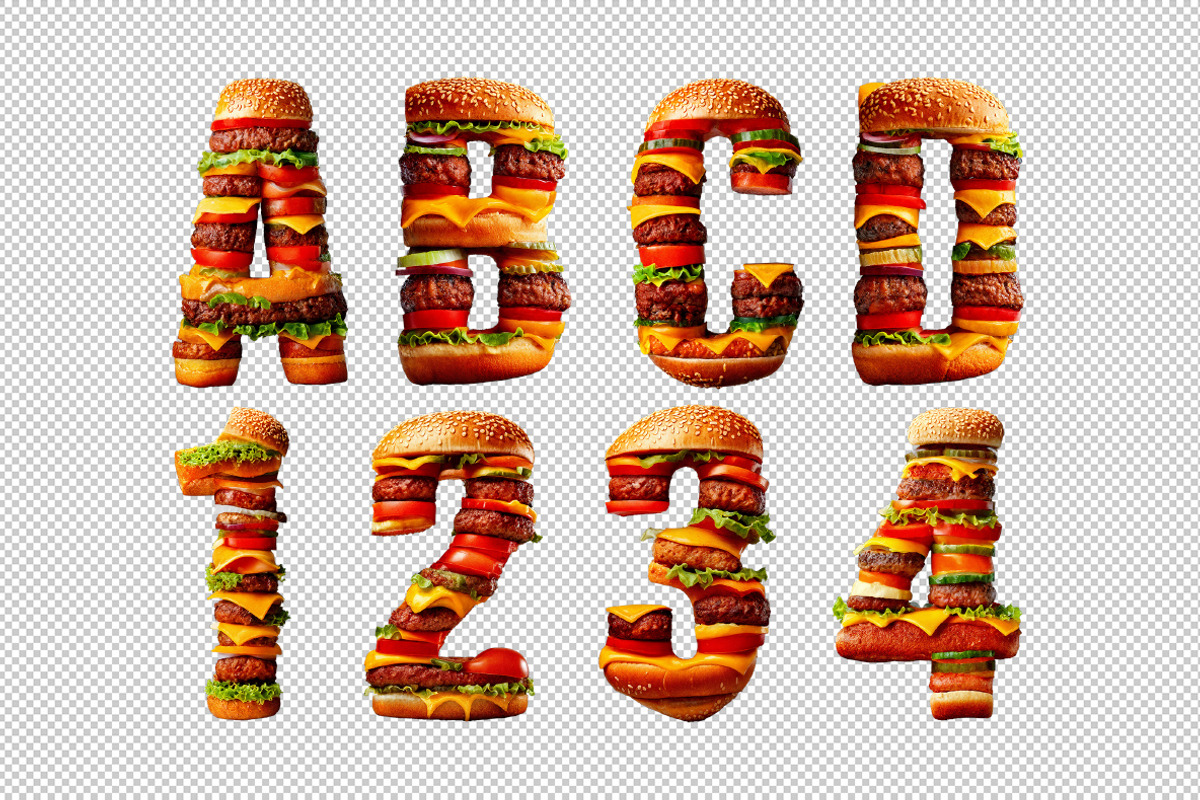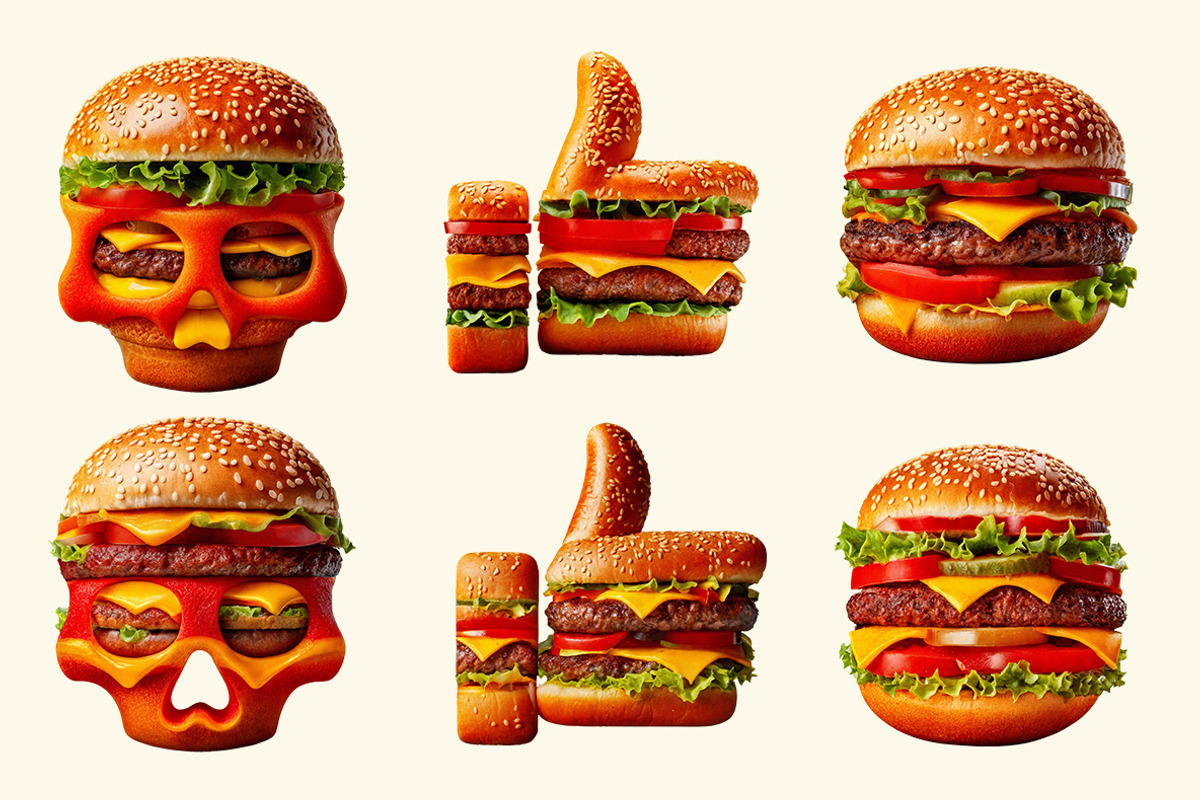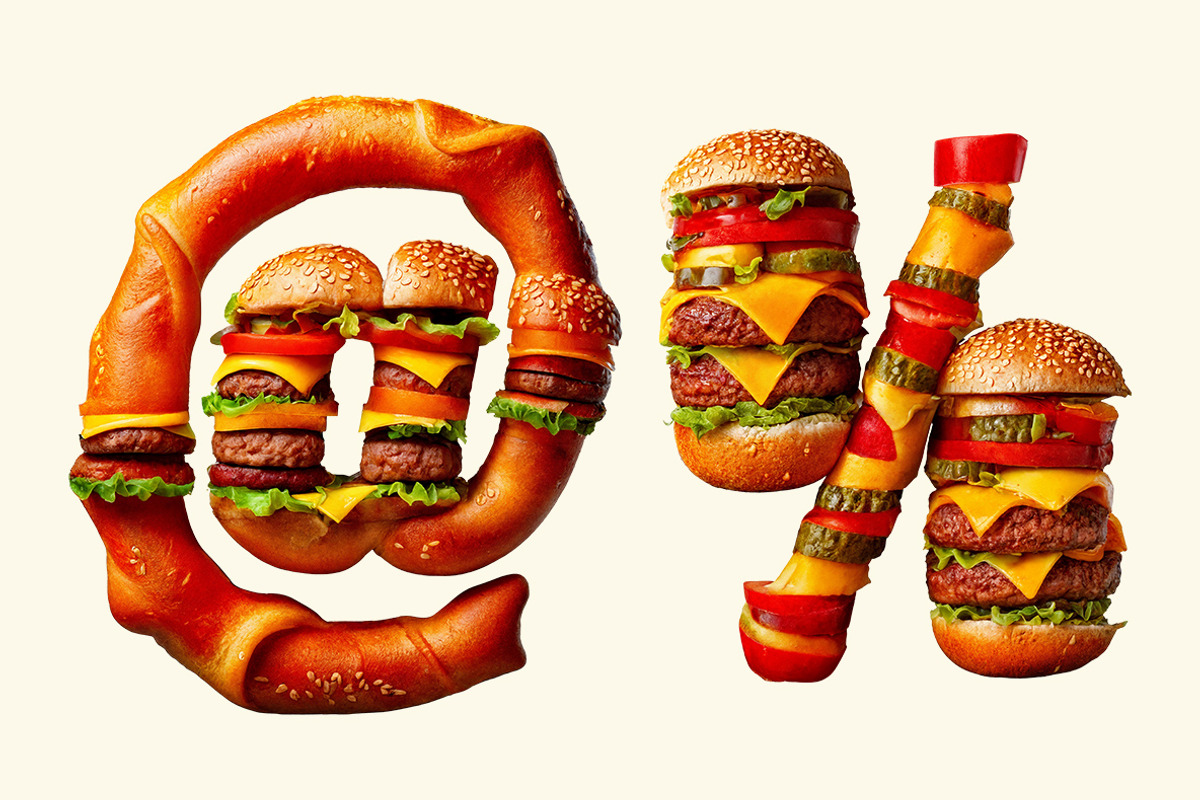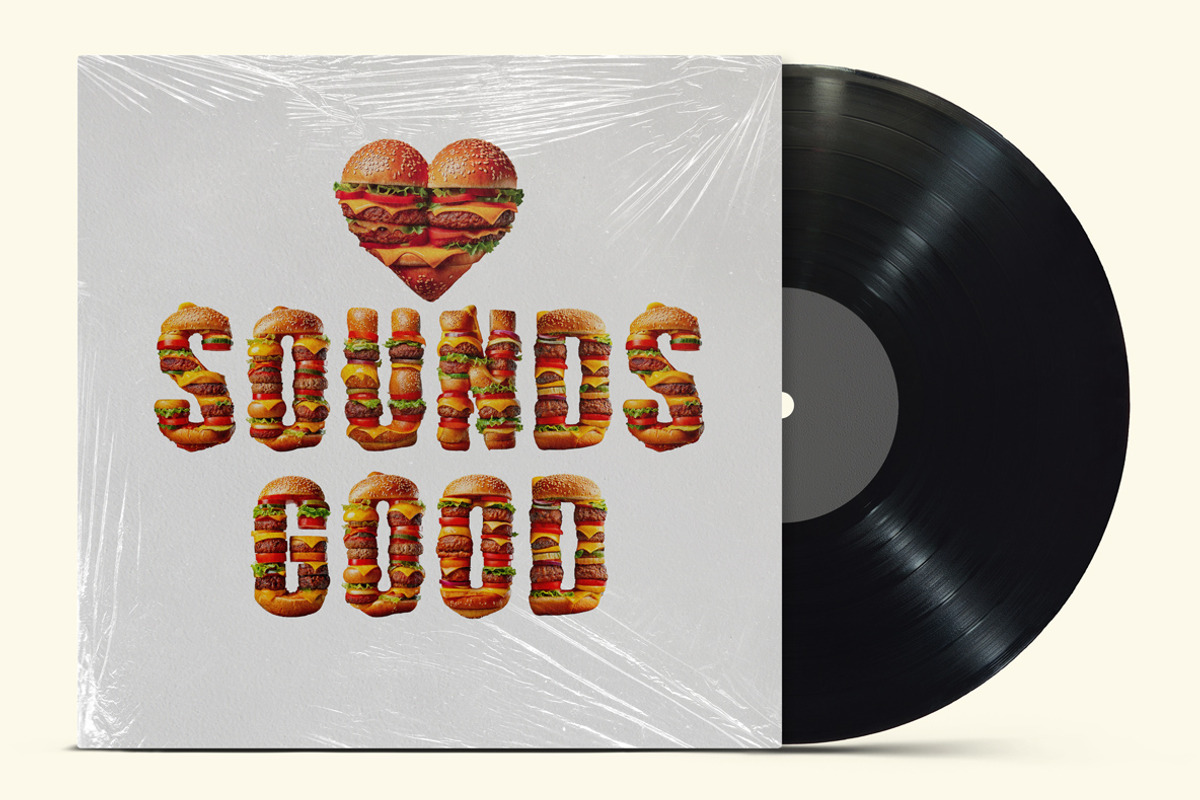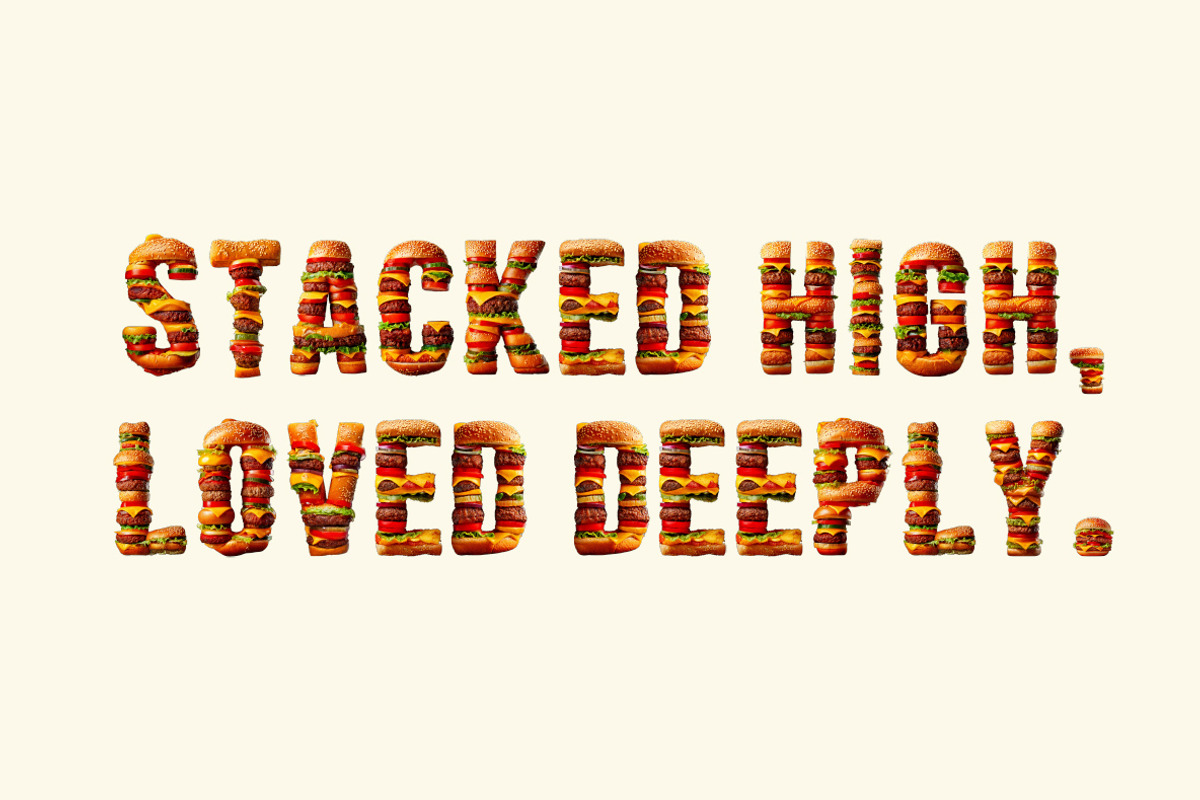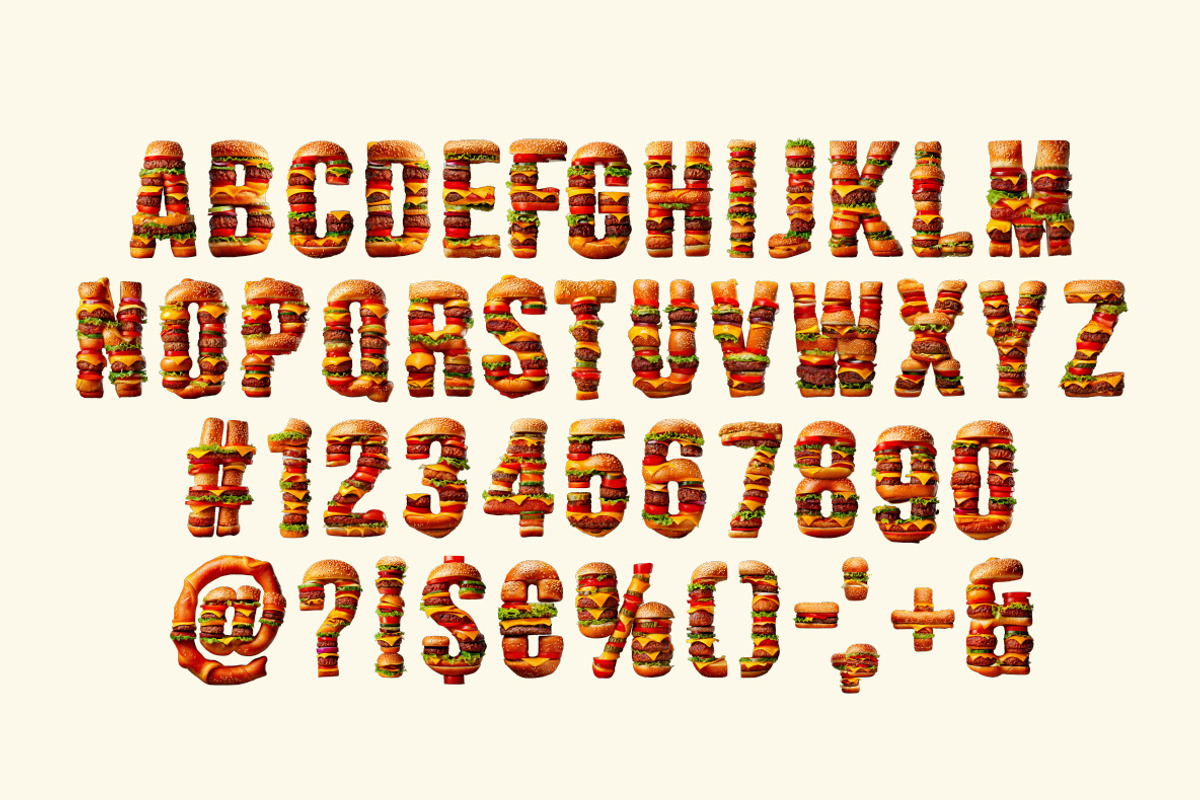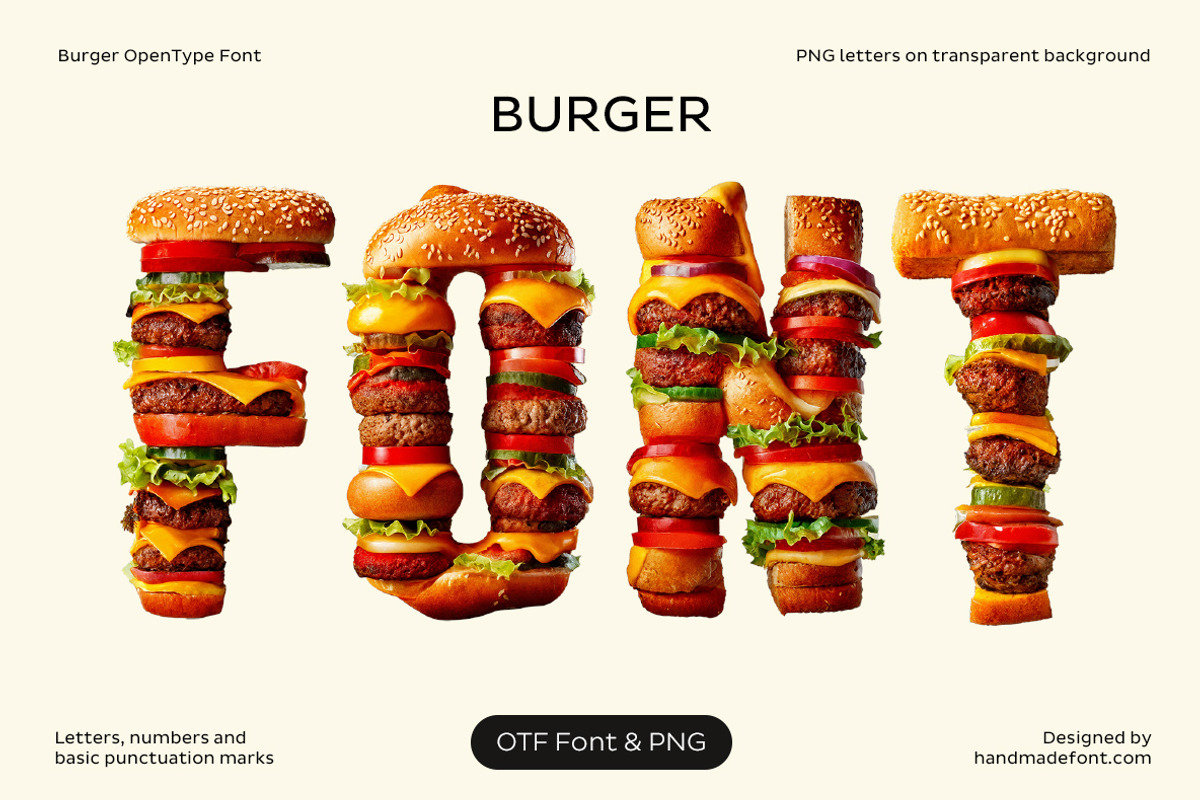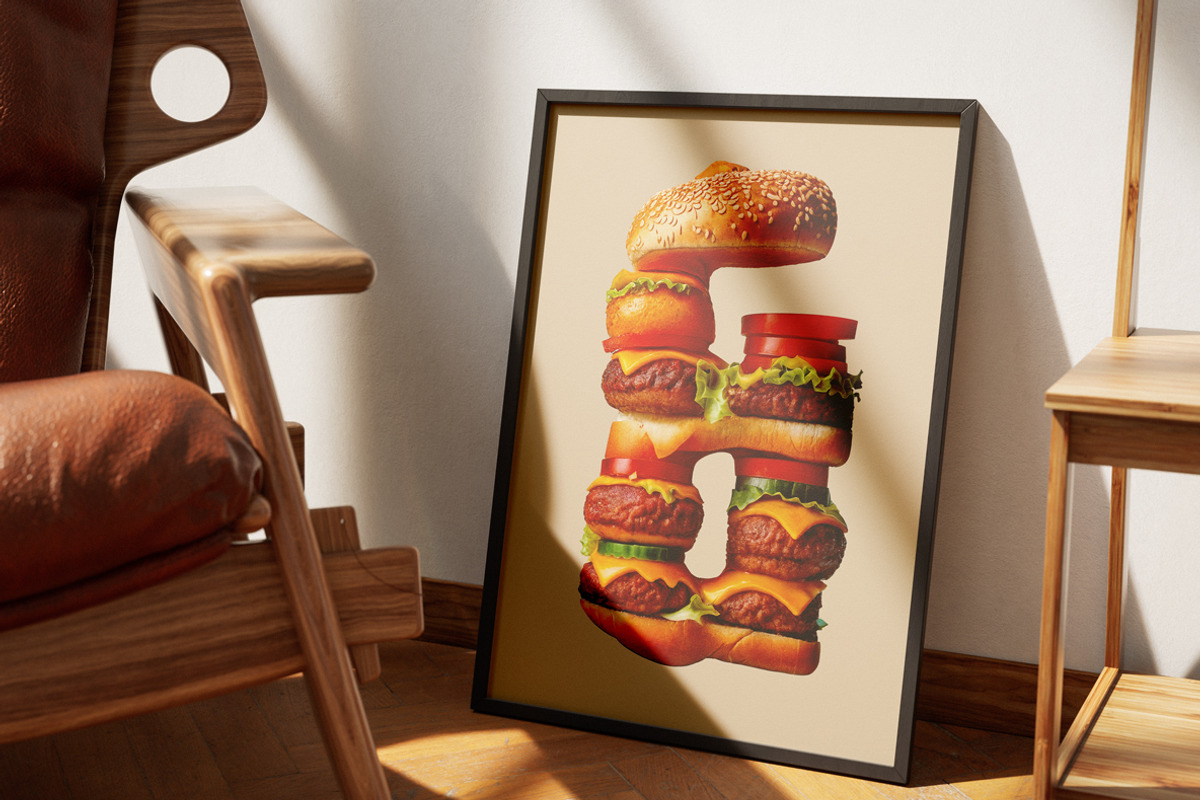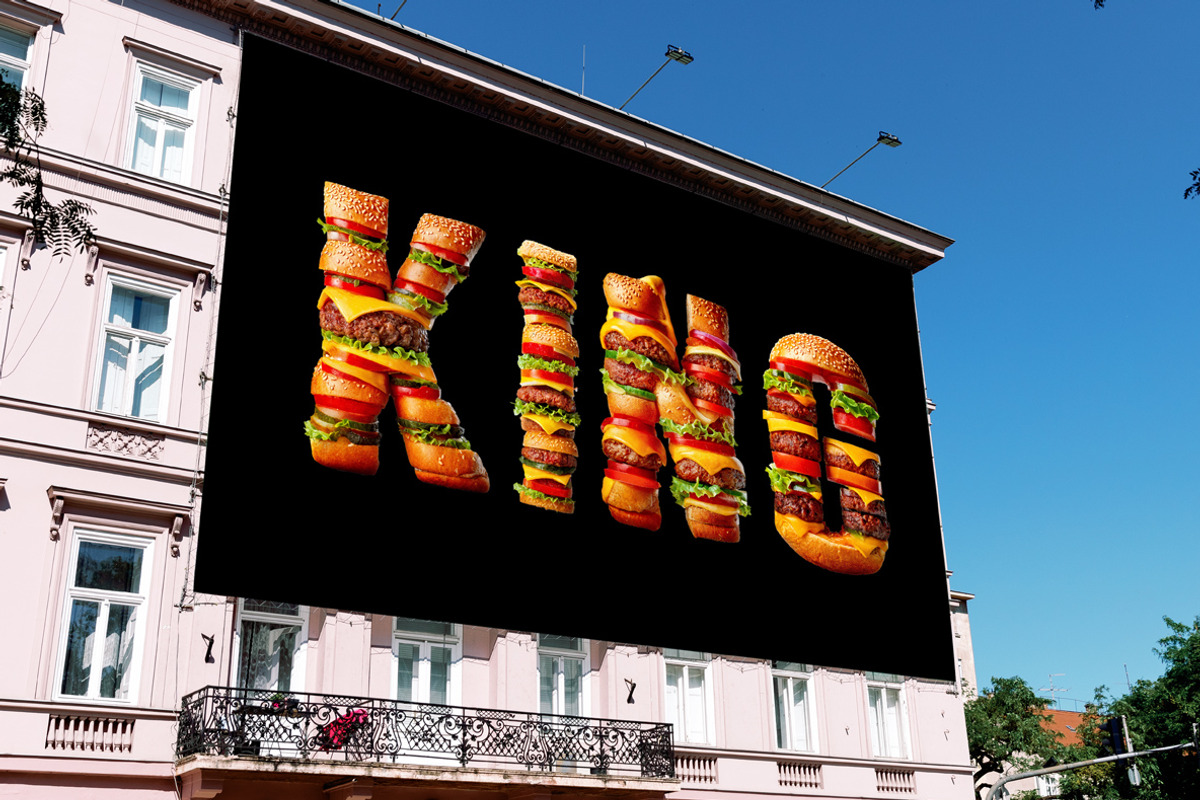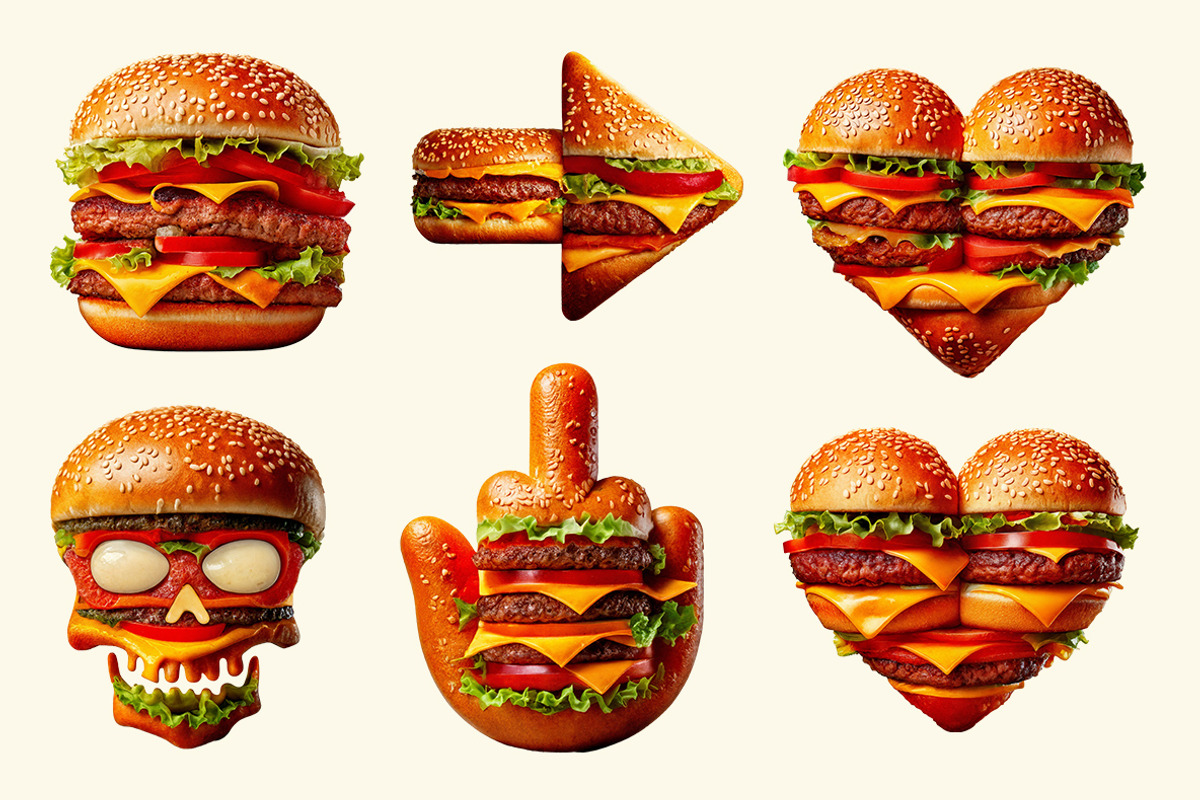
Burger Font
The Burger Font is not just typography — it’s a juicy celebration on a bun! Every letter is stacked with sizzling beef patties, gooey cheese, crisp lettuce, pickles, tomatoes, and soft buns sprinkled with sesame seeds. It’s bold, playful, and mouthwateringly fun, making it the perfect choice for burger brands, food trucks, playful ads, or anyone hungry for a design that stands out. Each character feels like a gourmet tower ready to topple into delicious chaos. With Burger Font, your designs don’t just say something — they serve it up hot and tasty, with extra cheese on top!
A high definition OpenType Font. Contains uppercase characters, numerals and basic punctuation. (Draw height roughly 800 pixels). All letters and glyphs that comprises this font you can see on the preview.
- Letters : A B C D E F G H I J K L M N O P Q R S T U V W X Y Z
- Numbers : 0 1 2 3 4 5 6 7 8 9
- Others : ! ? - . ' $ € % & #